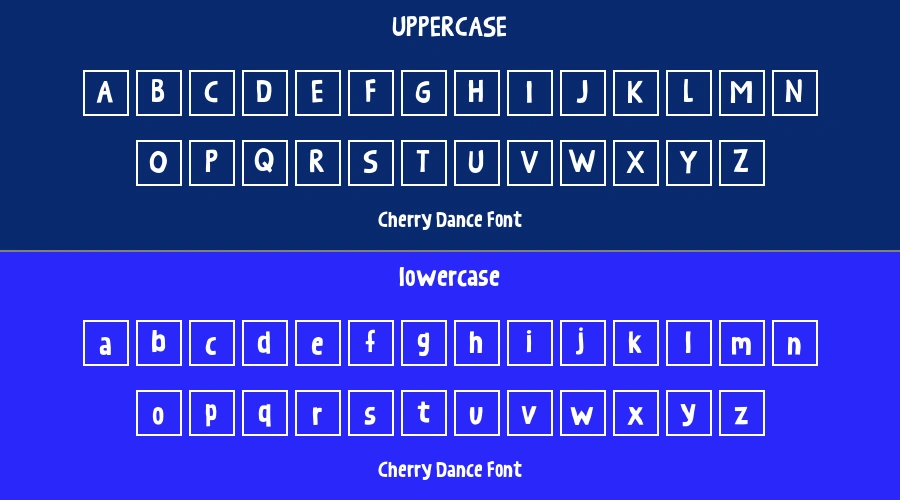
About Cherry Dance Font
Cherry Dance Font stands out for its distinctive combination of hand-drawn quality and professional standards. Ideal for brand guidelines, it provides the longevity and cultural relevance that professional projects demand. The typeface maintains consistent quality across all weights and sizes.
Key features include refined systematic design and practical mid-word alternates, enhancing typographic expression. In editorial spreads applications, Cherry Dance Font demonstrates exceptional multi-color registration. The stroke contrast and contemporary relevance contribute to its distinctive character and professional appeal.